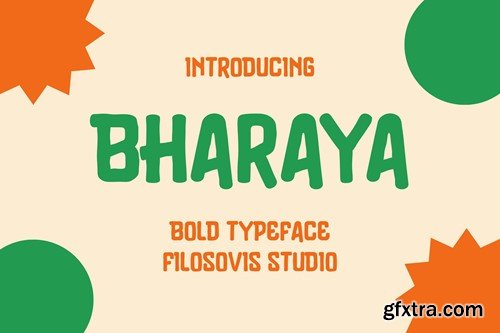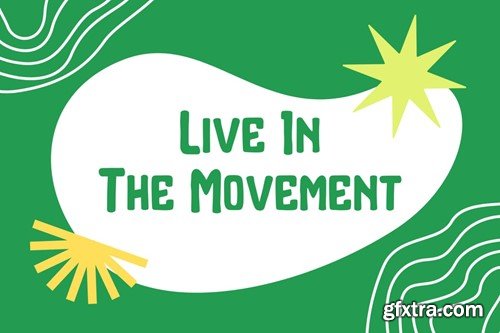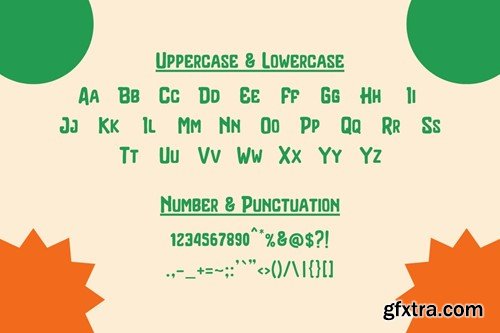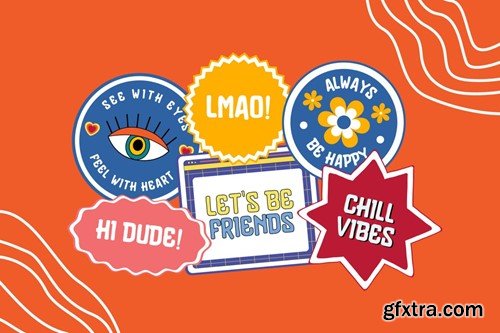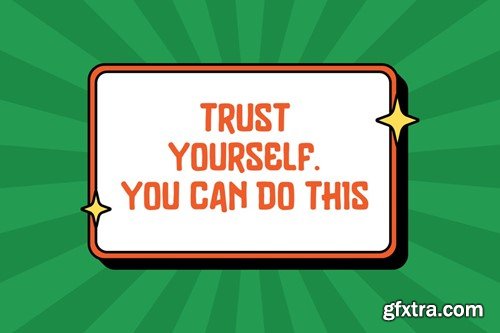
Bharaya Bold 字体XZL2C2C
Bharaya Bold Typeface XZL2C2C
Bharaya Bold Typeface
Description
BHARAYA is a premium display font, characterised by bold letters.